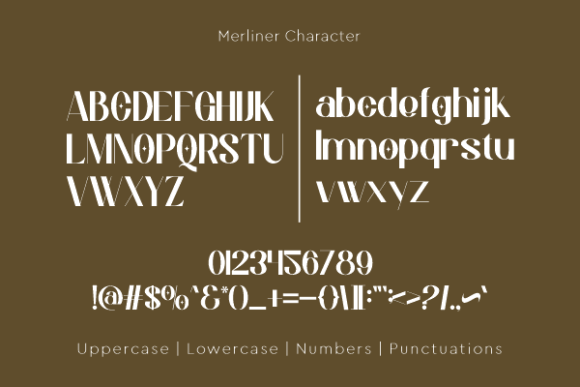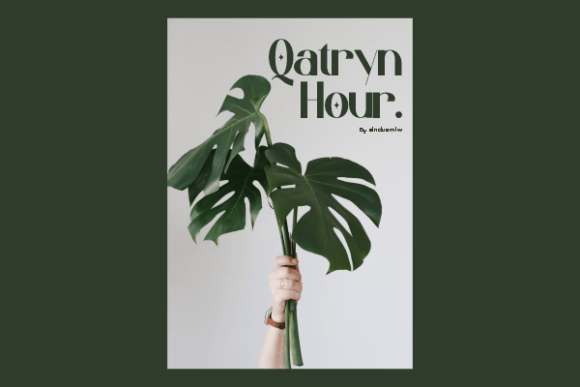
Merliner Font
Designer: sinduamiw
Qimberlin Font is an elegant and modern sans serif font. Fall in love with its incredibly versatile style and use it to create beautiful wedding invitations, beautiful stationary art, interesting social media posts, and more.